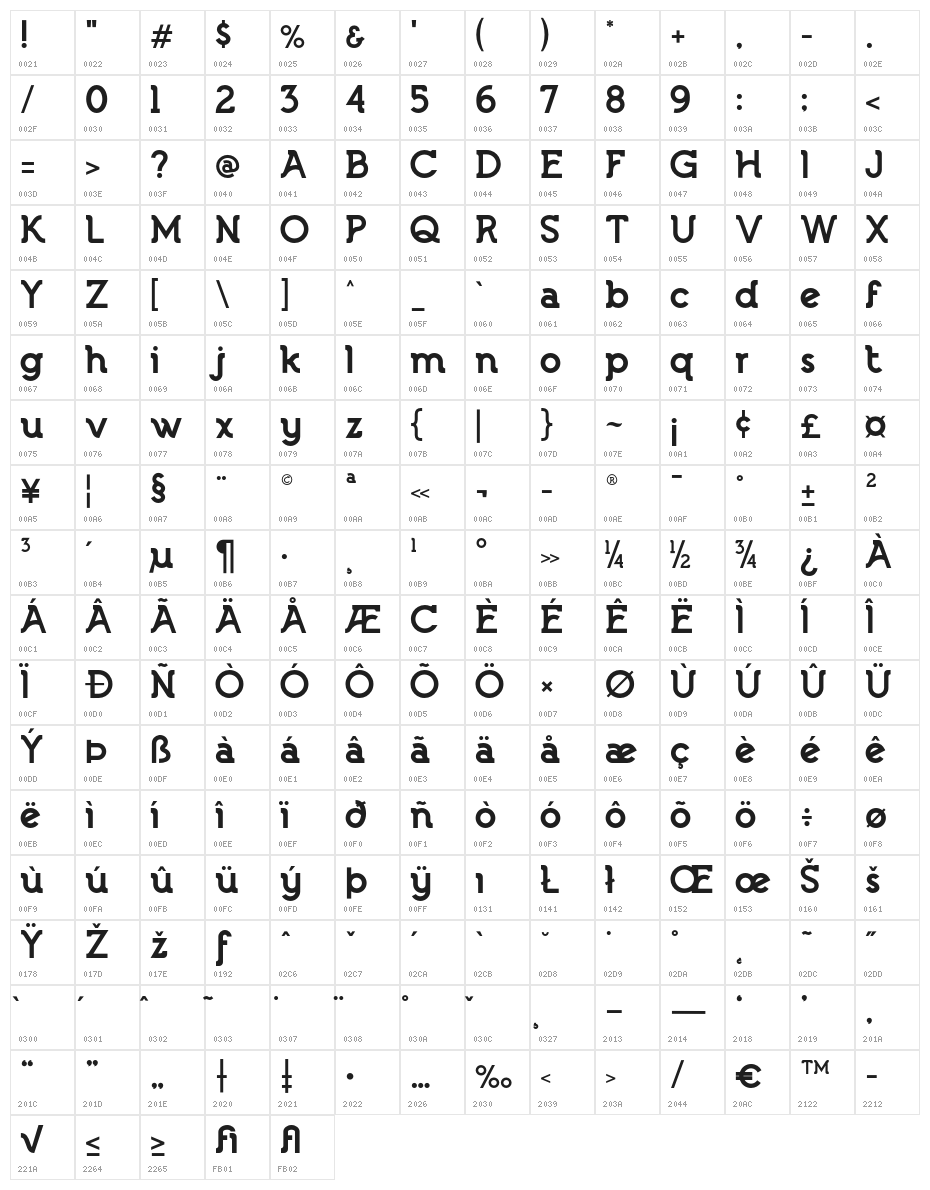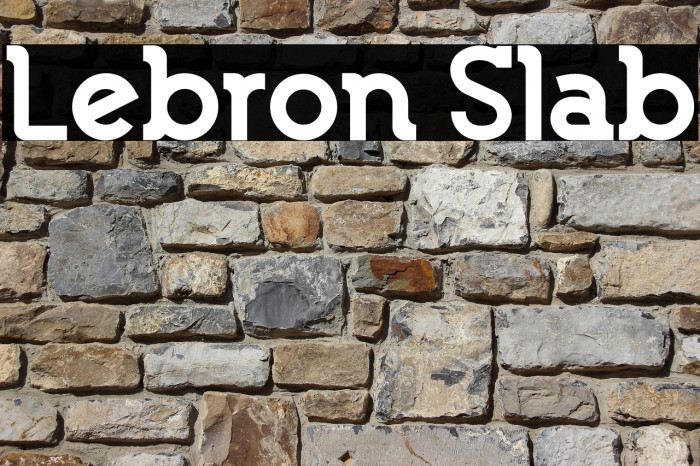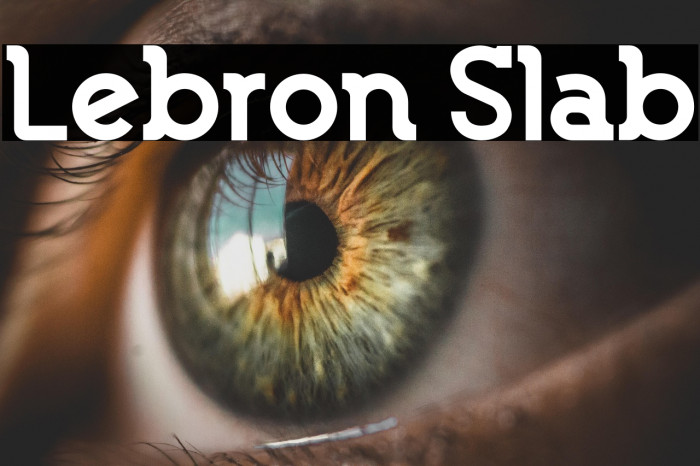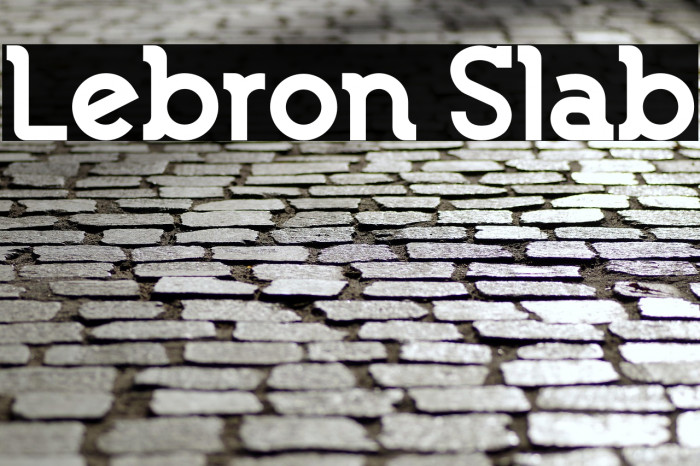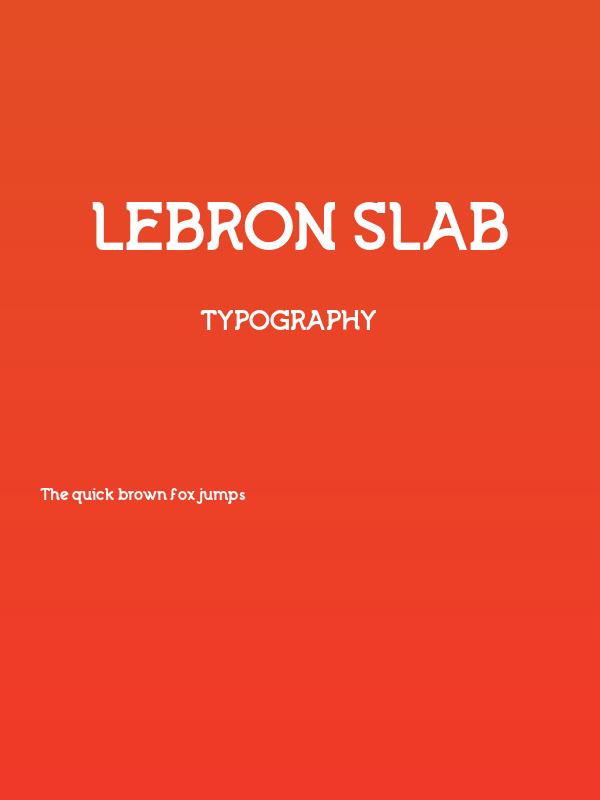
Lebron Slab Font
Lebron Slab Description
This font features a bold and robust slab serif style, characterized by thick, block-like serifs that give it a strong and authoritative presence. The uppercase letters are uniform in height, with a slight curvature that adds a touch of softness to the otherwise solid structure. The lowercase letters maintain a consistent weight, with rounded edges that enhance readability. Numbers are clear and distinct, with a balanced proportion that aligns well with the overall design. Special characters are crafted with precision, ensuring they complement the alphabetic characters seamlessly. This font's design is both modern and timeless, making it versatile for various applications.
| Proposed Projects | Ideal for branding, headlines, posters, and any project requiring a strong visual impact. |